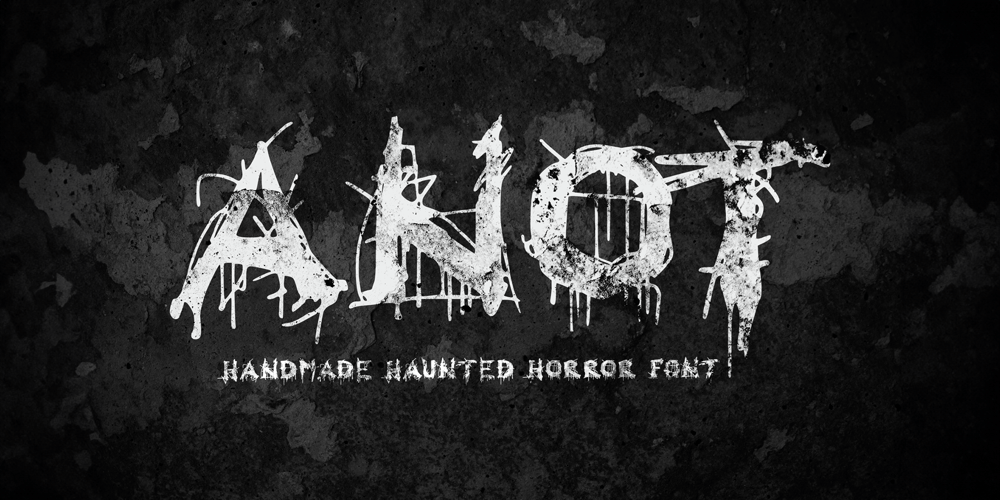
Anot
Anot font
Anot Font Family was designed by Anastasiia Kulchytska and published by Pina Studio. Anot contains 1 styles and family package options. This eerie font is tailor-made for horror narratives in stories, games, videos, and images. Reminiscent of chilling scenes from scary movies, it evokes the sensation of writing on walls with blood. Only Latin alphabet and exclusively capital letters and symbols are included into this package. Font is suitable for any graphic assets which want to invoke a spine-tingling feeling in its’ users